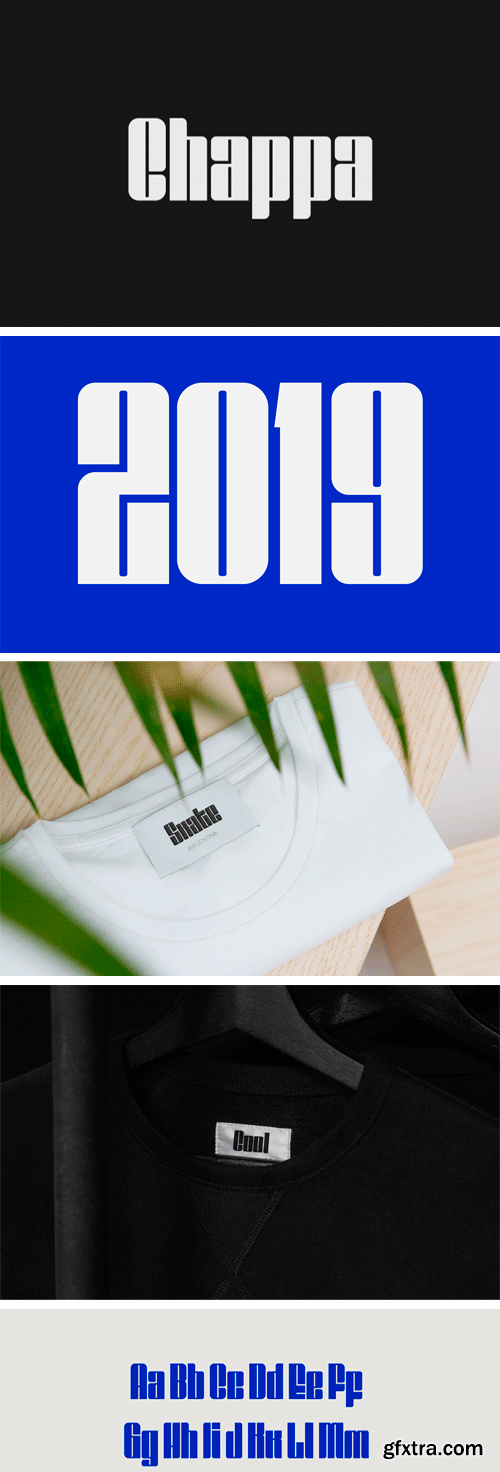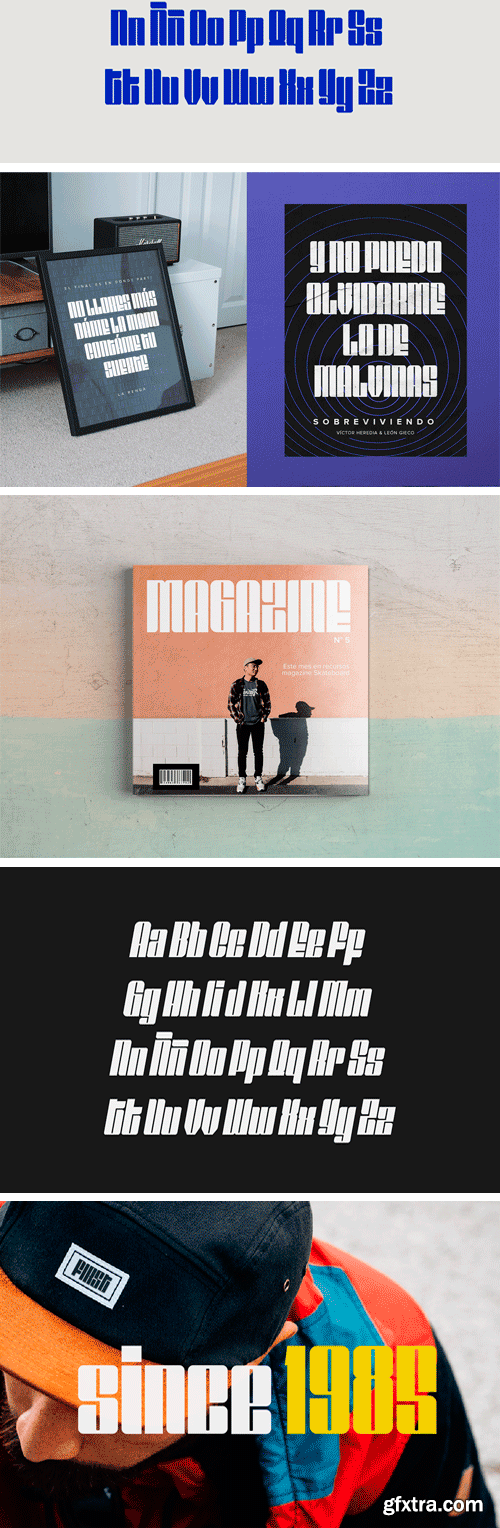
查普马字体
Chappa Font
Chappa is a high contrast sans serif typeface. It includes two styles – Regular and Oblique, contains uppercase and lowercase letters, numbers and symbols, including multilanguage support. Its use has visualization purposes to be applied, for example in: magazines, posters, labels, posters, headlines or banners.